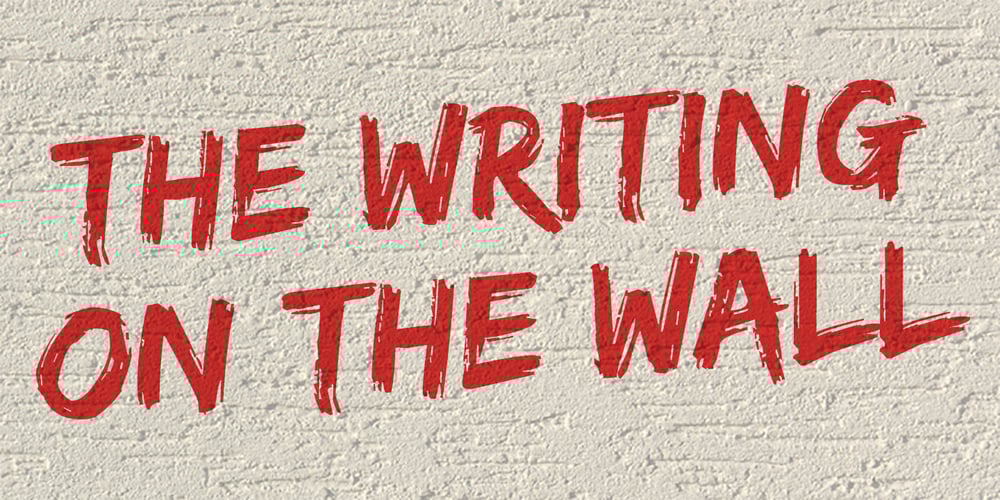
Edo Pro
Edo Pro font
Edo Pro Font Family was designed by Vic Fieger, Roger S. Nelsson and published by CheapProFonts. Edo Pro contains 1 styles and family package options. A free-flowing brush script with only uppercase letters. Now with a professional and multilingual character set! Vic Fieger says: “The letters in Edo were hand-drawn using a thick black permanent marker with a flat head. The head was chopped up using a box cutter to create a “brush” effect. The entire font was made while watching Bobobo-bo Bo-bobo. Edo has been used by video game-makers UbiSoft in their game adaptation of the 2007 animated film Surf’s Up, as well as ads for the Fuse 2006 Warped Tour. More recently, it has turned up in such places as the cover for the US release of the manga Teru Teru x Shonen, and the logo for A&E’s program, “The Cleaner.” ALL fonts from CheapProFonts have very extensive language support: They contain some unusual diacritic letters (some of which are contained in the Latin Extended-B Unicode block) supporting: Cornish, Filipino (Tagalog), Guarani, Luxembourgian, Malagasy, Romanian, Ulithian and Welsh. They also contain all glyphs in the Latin Extended-A Unicode block (which among others cover the Central European and Baltic areas) supporting: Afrikaans, Belarusian (Lacinka), Bosnian, Catalan, Chichewa, Croatian, Czech, Dutch, Esperanto, Greenlandic, Hungarian, Kashubian, Kurdish (Kurmanji), Latvian, Lithuanian, Maltese, Maori, Polish, Saami (Inari), Saami (North), Serbian (latin), Slovak(ian), Slovene, Sorbian (Lower), Sorbian (Upper), Turkish and Turkmen. And they of course contain all the usual “western” glyphs supporting: Albanian, Basque, Breton, Chamorro, Danish, Estonian, Faroese, Finnish, French, Frisian, Galican, German, Icelandic, Indonesian, Irish (Gaelic), Italian, Northern Sotho, Norwegian, Occitan, Portuguese, Rhaeto-Romance, Sami (Lule), Sami (South), Scots (Gaelic), Spanish, Swedish, Tswana, Walloon and Yapese.